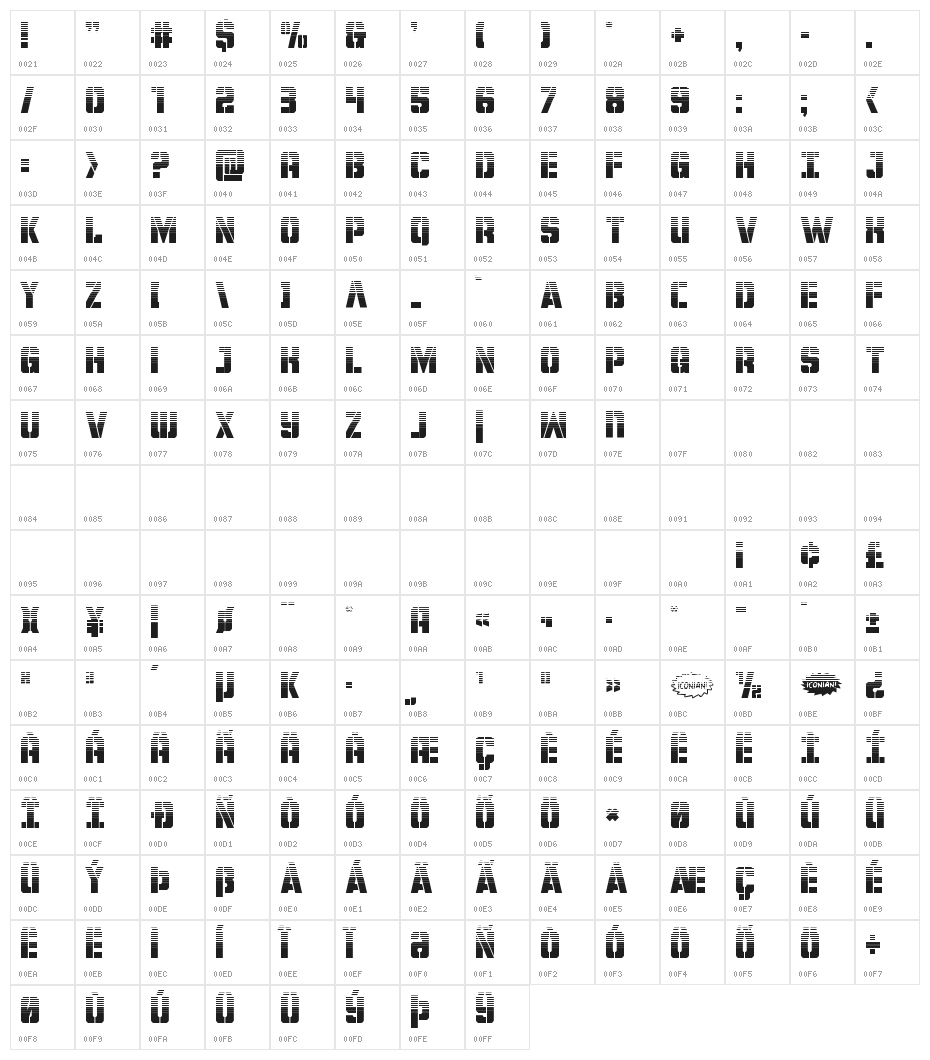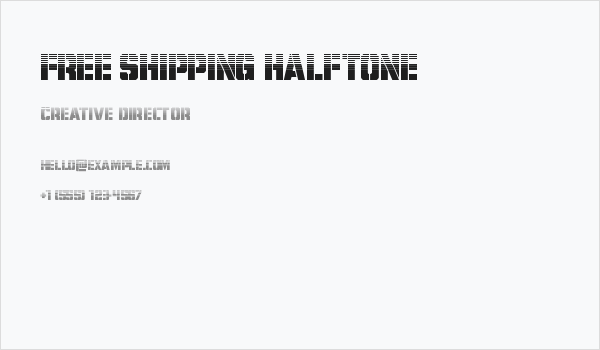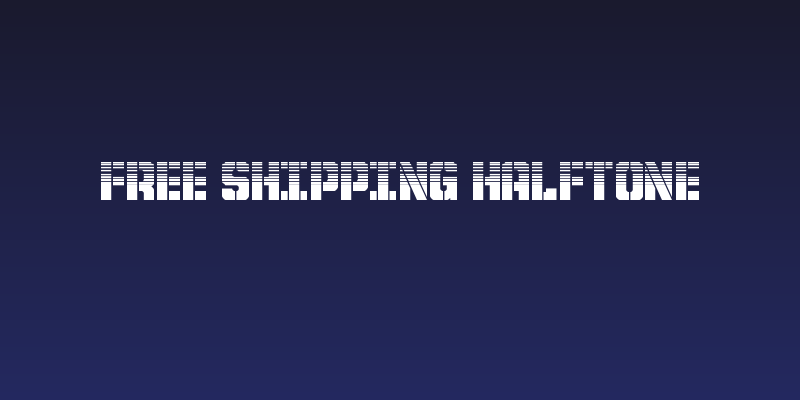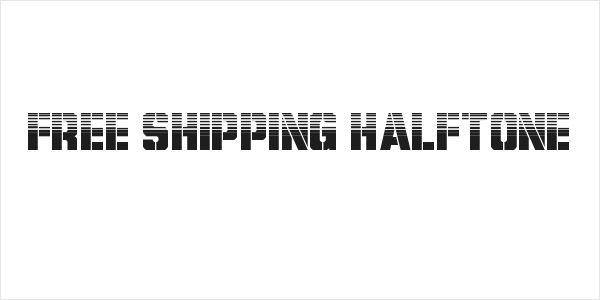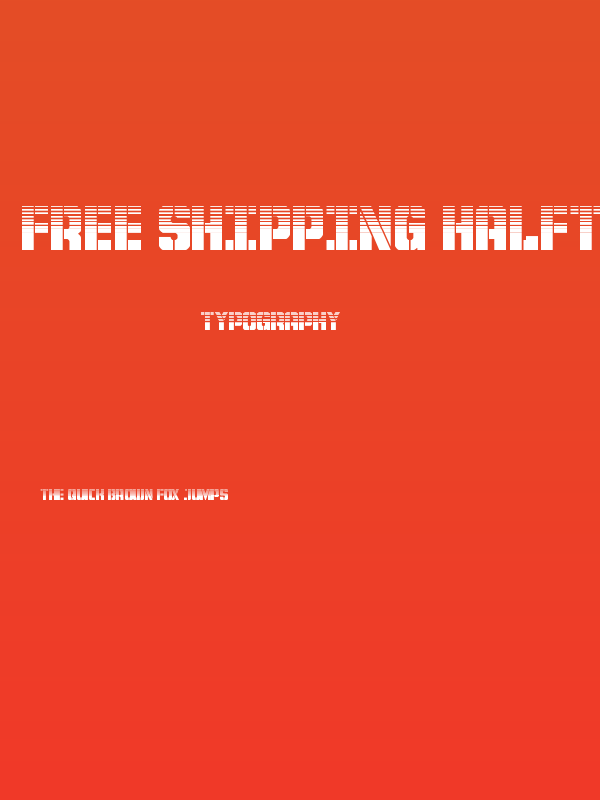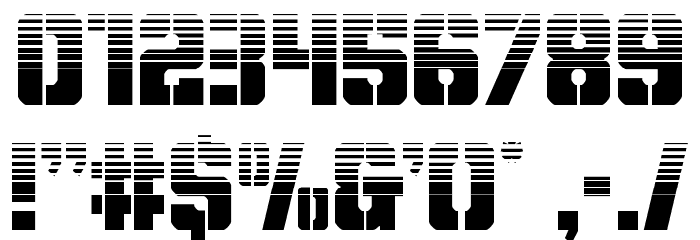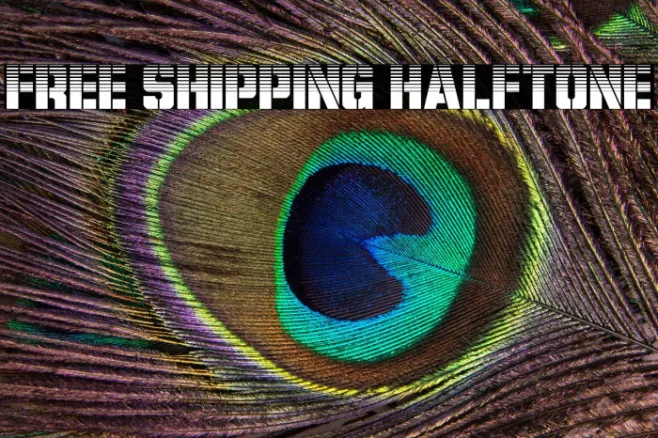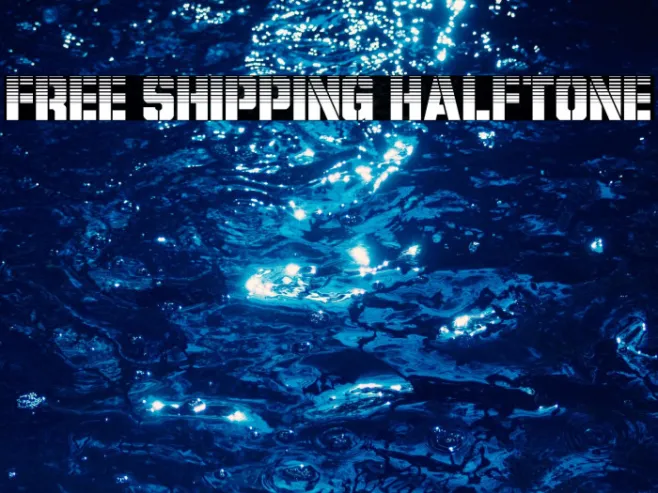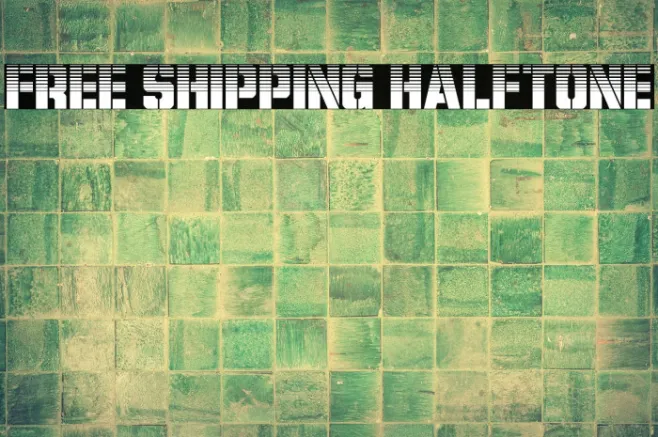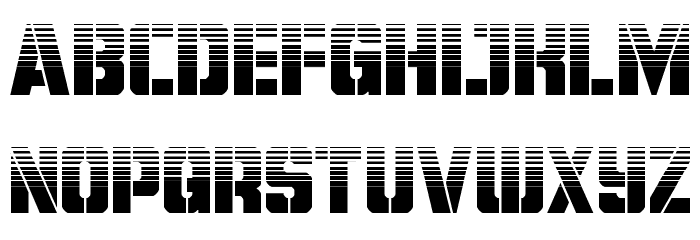
Free Shipping Halftone Font
Free Shipping Halftone Description
This font features a bold, geometric design with a distinct halftone pattern that gives it a unique, industrial feel. The characters are constructed with horizontal lines that create a sense of movement and depth, making it stand out in any design. The uppercase and lowercase letters maintain a consistent style, with sharp angles and clean edges. Numbers and special characters are equally bold and follow the same halftone pattern, ensuring uniformity across all glyphs. This font is ideal for projects that require a modern, edgy look with a touch of vintage flair.
| Overall Style | Modern, Industrial |
| Proposed Projects | Ideal for posters, album covers, branding, and any project needing a striking, industrial aesthetic. |